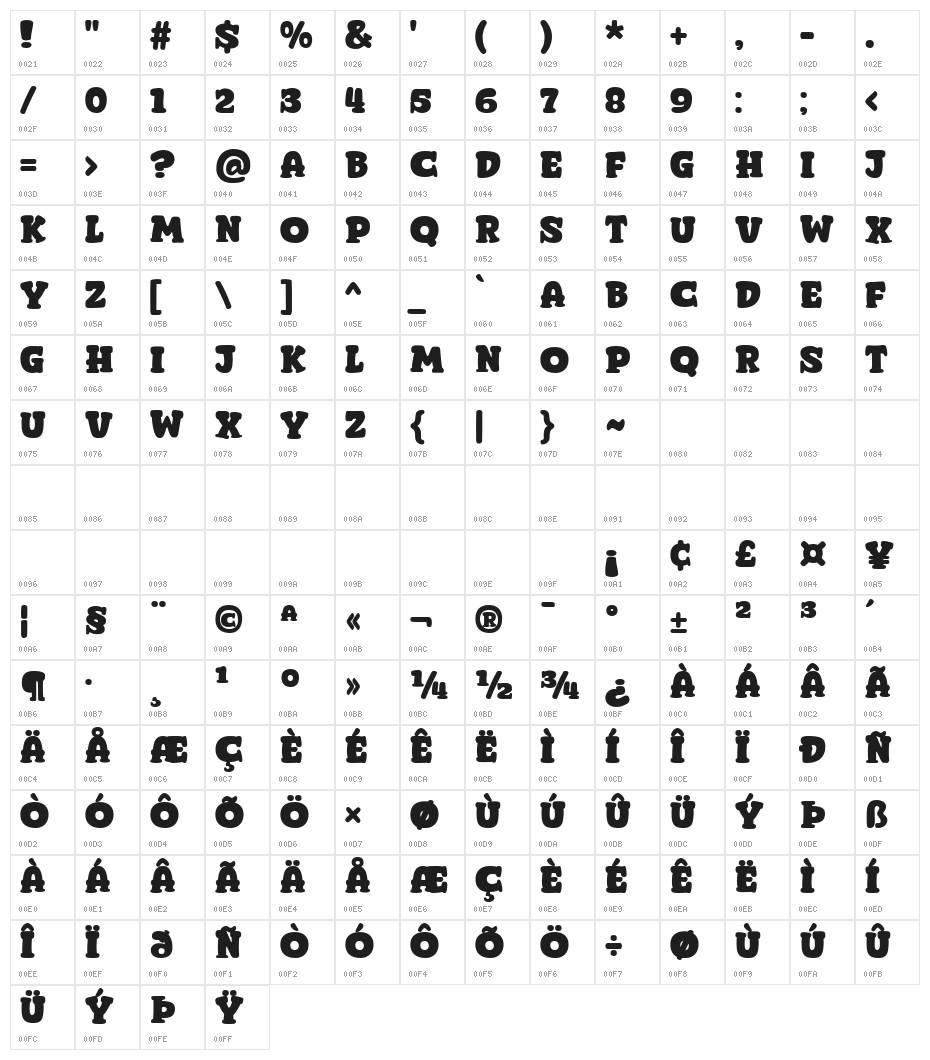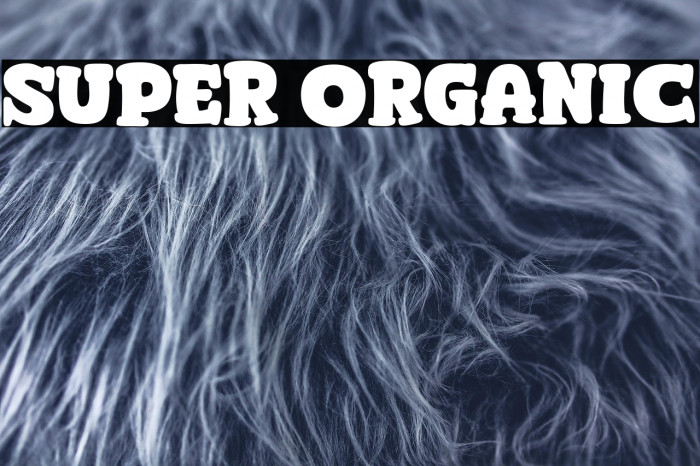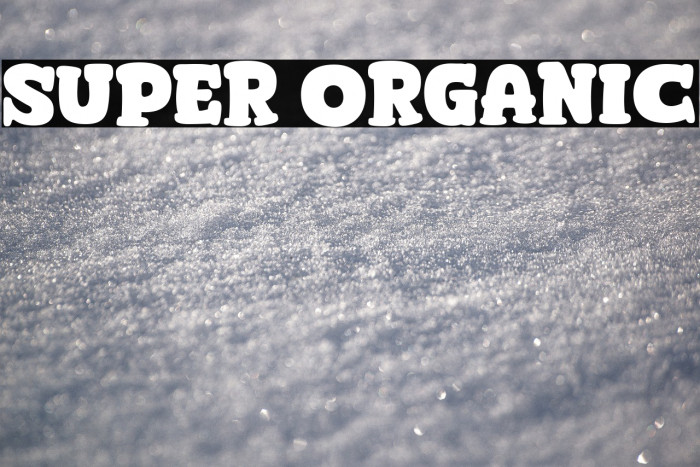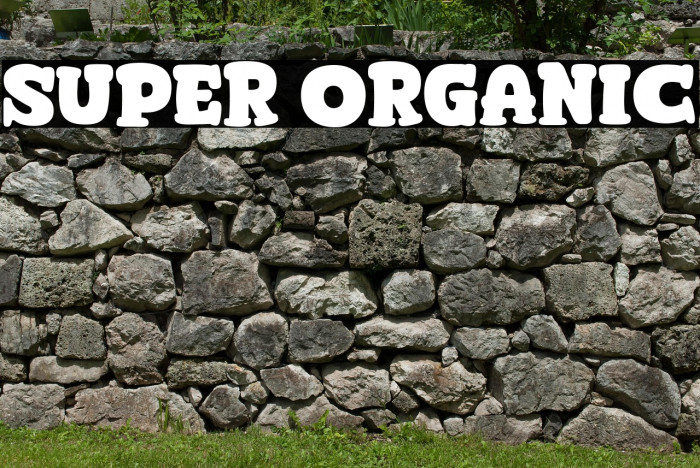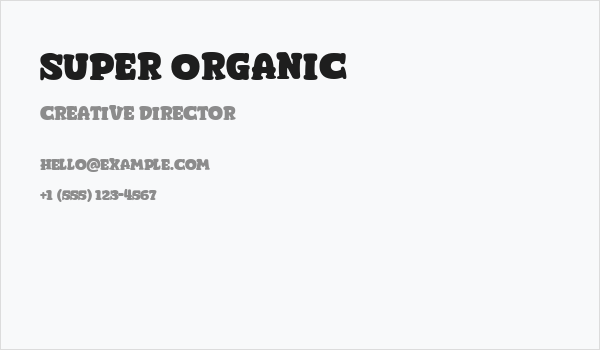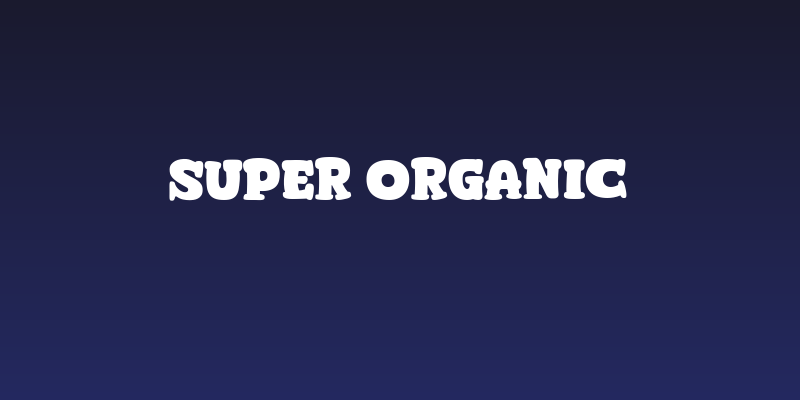
Super Organic Font
Super Organic Description
This font features a bold and playful design with rounded edges and a chunky appearance. The letters are uniformly thick, giving it a strong presence. The style is reminiscent of retro or vintage designs, with a touch of whimsy that makes it stand out. The characters are well-spaced, ensuring readability while maintaining a cohesive look. The numbers and special characters follow the same bold and rounded style, making them consistent with the alphabet. This font is ideal for projects that require a fun and engaging aesthetic.
| Proposed Projects | Perfect for children's books, playful branding, posters, and retro-themed designs. |